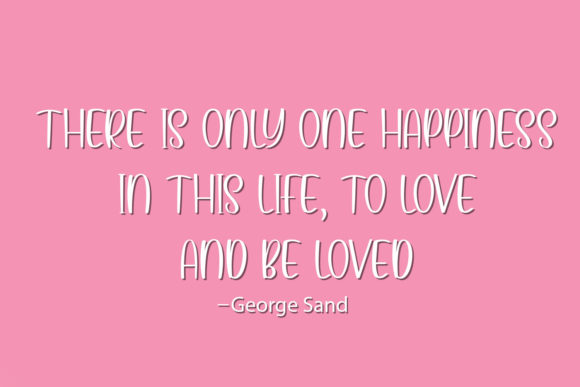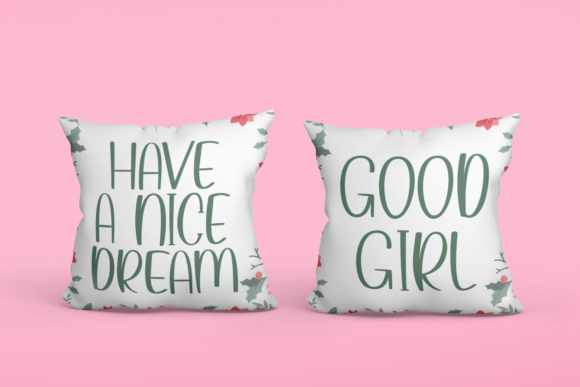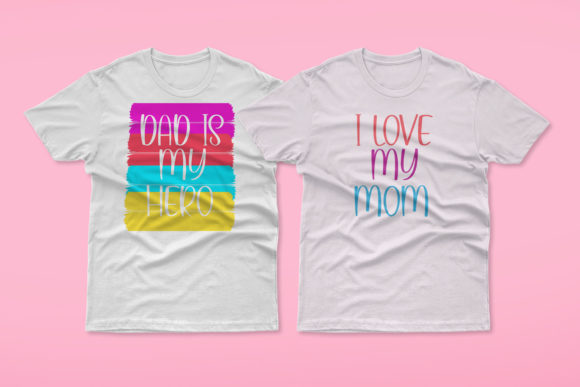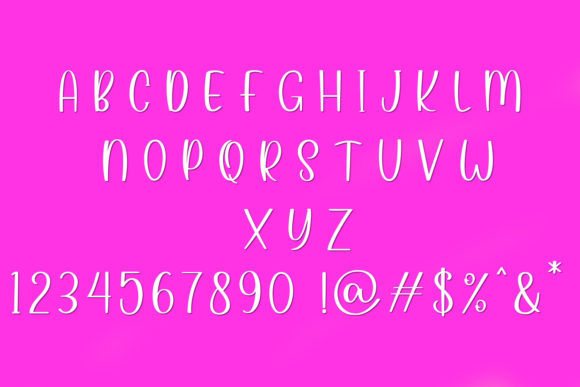
Happy Monday Font: The Perfect Addition to Your Design Projects
Are you tired of using the same old fonts in your design projects? Look no further than the Happy Monday Font, a cute and playful display font that’s sure to add a touch of personality to your work. With its smooth curves and stylish aesthetic, this font is perfect for fashion branding, editorial designs, and more.
What is Happy Monday Font?
Happy Monday Font is a display font designed to make a statement. Its unique blend of smooth curves and playful flair makes it stand out from more traditional fonts. This font is perfect for designers who want to add a touch of whimsy and fun to their work, while still maintaining a level of sophistication and elegance.
Key Features of Happy Monday Font
- Smooth Curves: The Happy Monday Font features smooth, flowing curves that give it a stylish and modern look.
- Playful Flair: This font has a playful, whimsical feel that’s perfect for designs that need a touch of personality.
- Fashion Branding: The Happy Monday Font is ideal for fashion branding, thanks to its stylish and sophisticated aesthetic.
- Editorial Designs: This font is also perfect for editorial designs, such as magazines, blogs, and more.
Why Choose Happy Monday Font?
There are many reasons why designers and crafters should choose the Happy Monday Font for their projects. Here are just a few:
- Unique Style: The Happy Monday Font has a unique style that’s sure to make your designs stand out from the crowd.
- Easy to Read: Despite its playful aesthetic, the Happy Monday Font is easy to read, making it perfect for designs that need to communicate a message.
- Versatile: This font can be used in a wide range of design projects, from fashion branding to editorial designs.
- High-Quality: The Happy Monday Font is a high-quality font that’s designed to deliver exceptional results.
How to Use Happy Monday Font
Using the Happy Monday Font in your design projects is easy. Here are a few tips to get you started:
- Pair with Other Fonts: The Happy Monday Font pairs well with other fonts, so don’t be afraid to experiment with different combinations.
- Use for Headlines: This font is perfect for headlines and titles, where its playful aesthetic can really shine.
- Add to Your Brand: Consider adding the Happy Monday Font to your brand’s design assets, where it can be used consistently across different projects.
Here are a few additional tips for designers and crafters who want to get the most out of the Happy Monday Font:
- Experiment with Colors: The Happy Monday Font looks great in a wide range of colors, so don’t be afraid to experiment and find the perfect hue for your design.
- Play with Size: This font can be used at a variety of sizes, from large headlines to smaller body text.
- Use for Digital and Print: The Happy Monday Font can be used in both digital and print designs, making it a versatile addition to your design assets.
| Font Name | Happy Monday Font |
| Author | niyos.studio |
In conclusion, the Happy Monday Font is a cute and playful display font that’s perfect for fashion branding, editorial designs, and more. With its smooth curves and stylish aesthetic, this font is sure to add a touch of personality to your design projects. Whether you’re a designer, crafter, or simply someone who loves typography, the Happy Monday Font is definitely worth checking out.